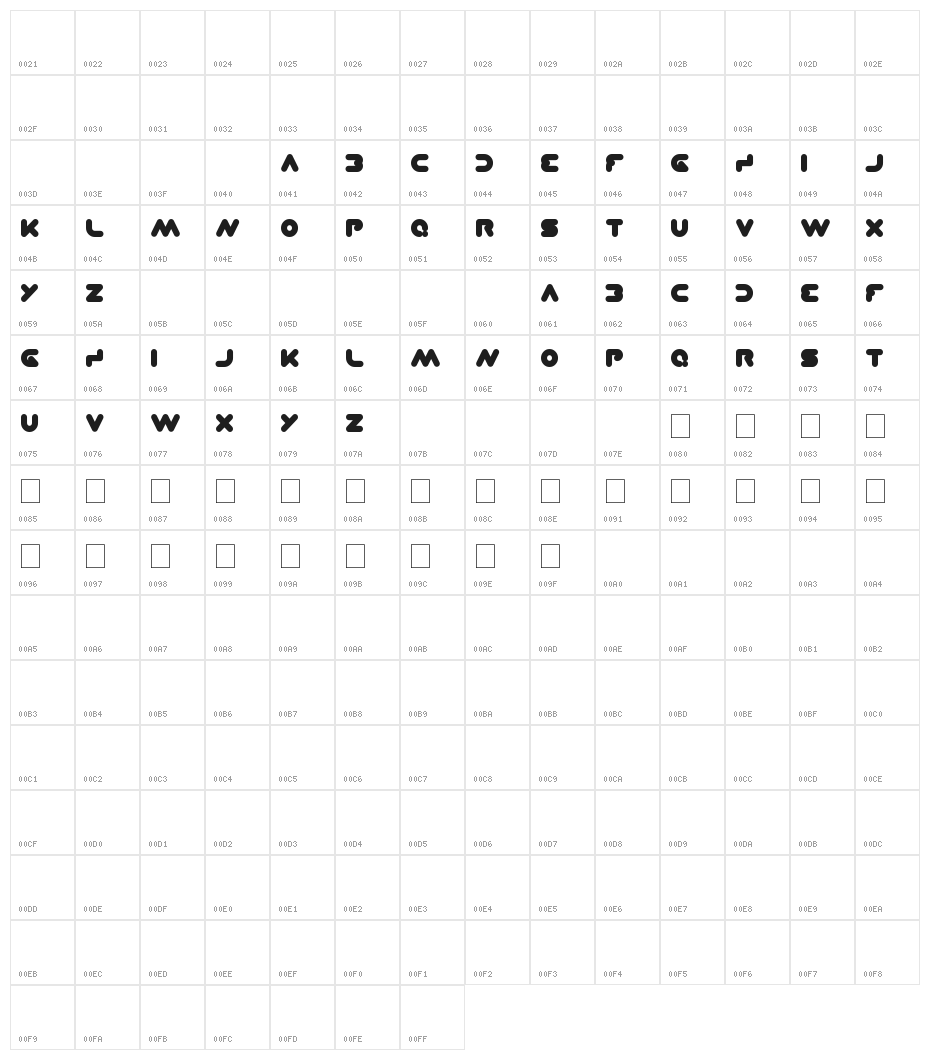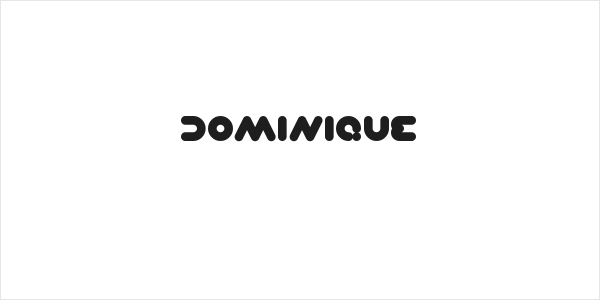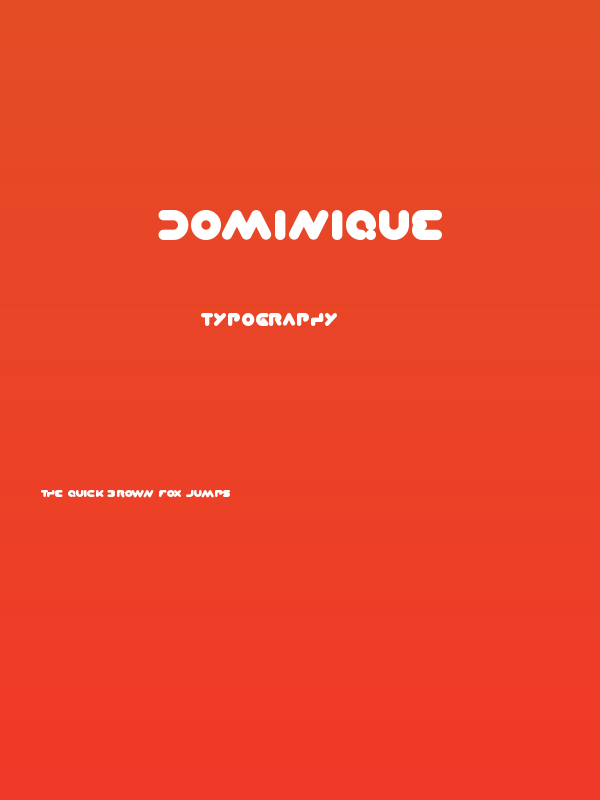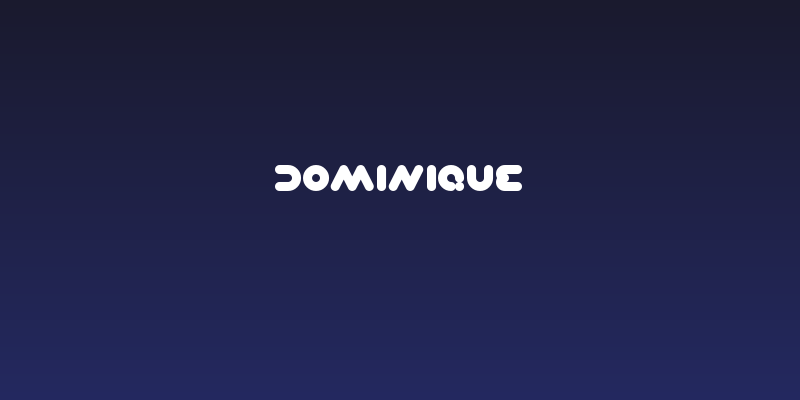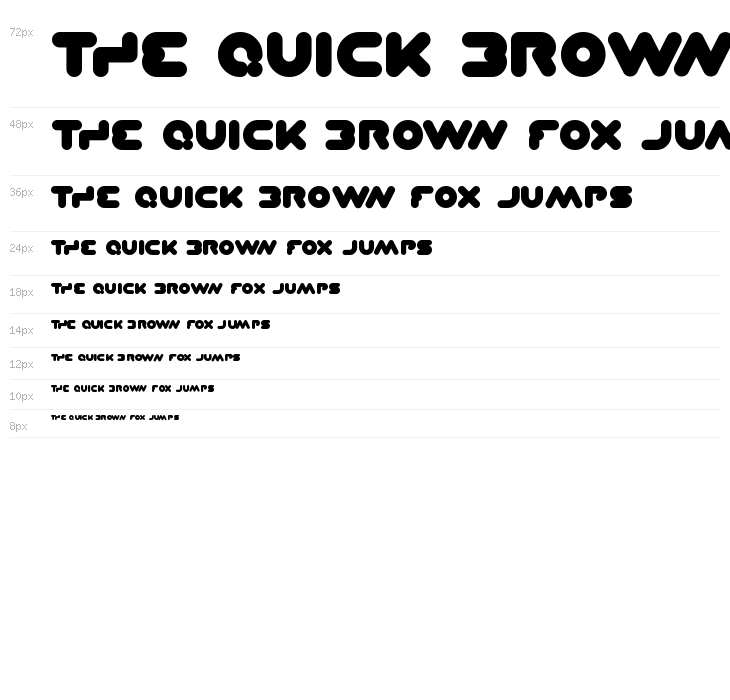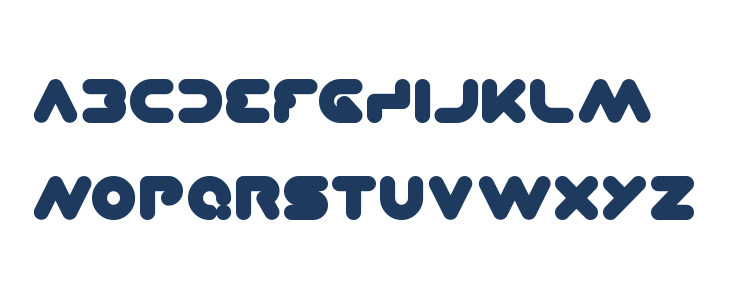
dominique Font
dominique Description
This font features a bold, geometric style with rounded edges and a futuristic aesthetic. The characters are constructed with thick strokes and uniform weight, creating a strong visual impact. The design incorporates a playful yet modern feel, making it suitable for creative and contemporary projects. The uppercase letters are consistent in height and width, providing a balanced and cohesive look. The font's unique style is characterized by its smooth curves and minimalistic approach, offering a distinctive appearance that stands out in various design contexts.